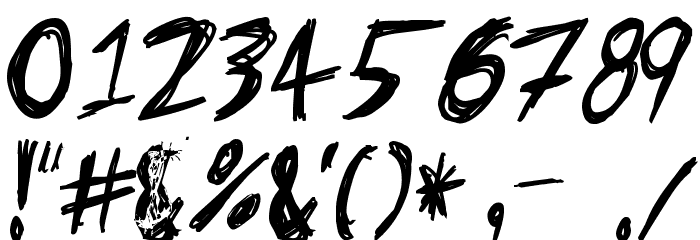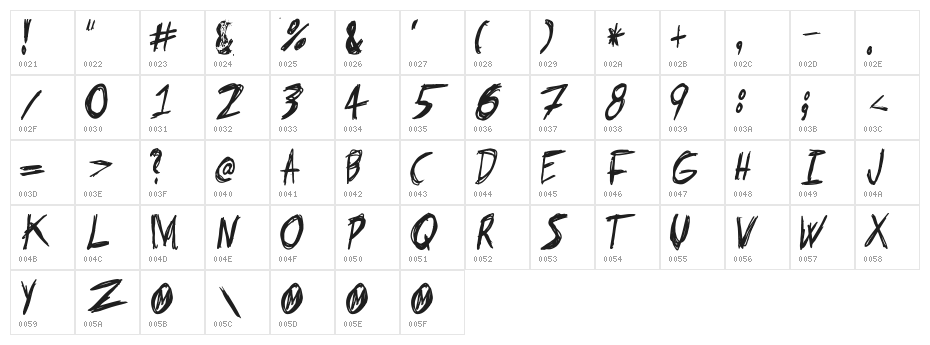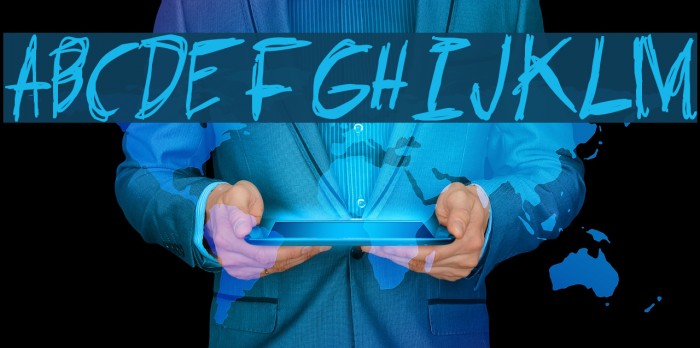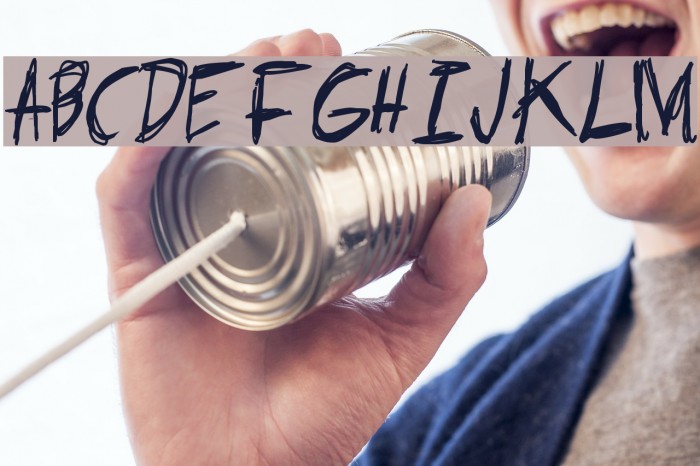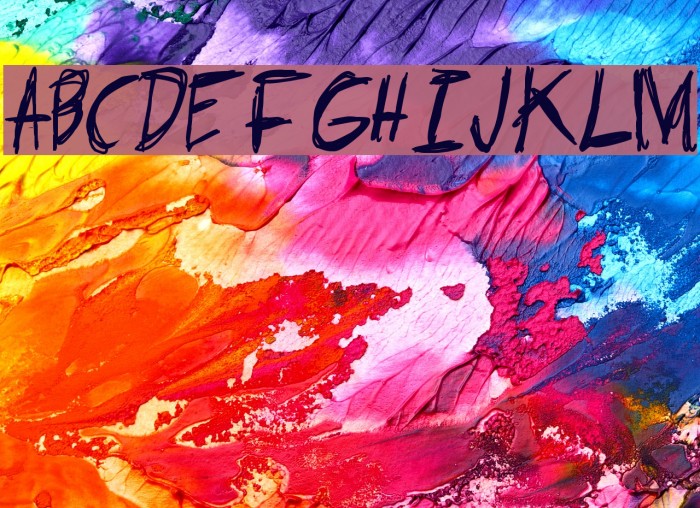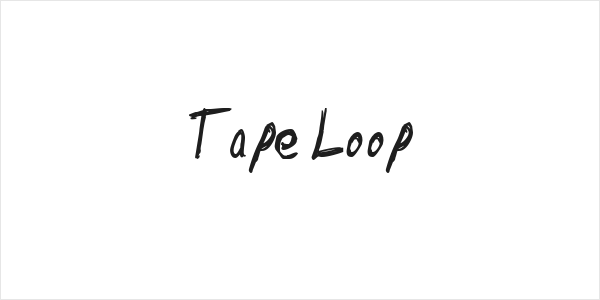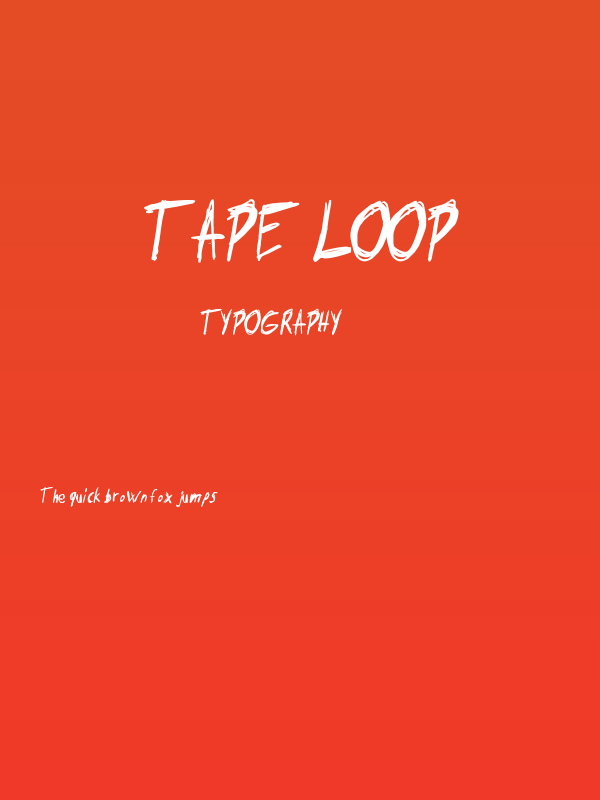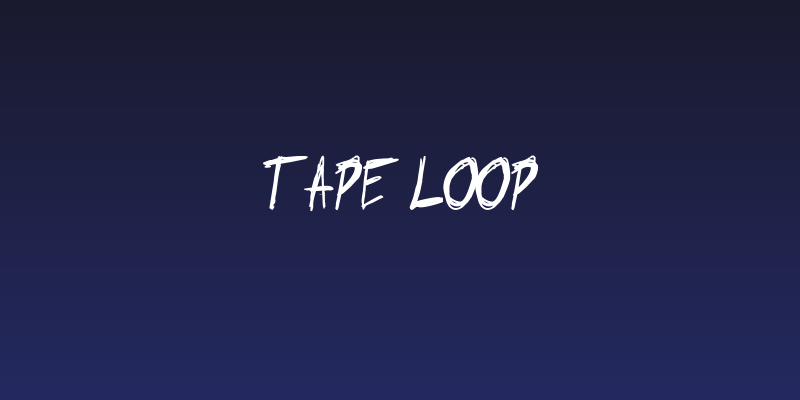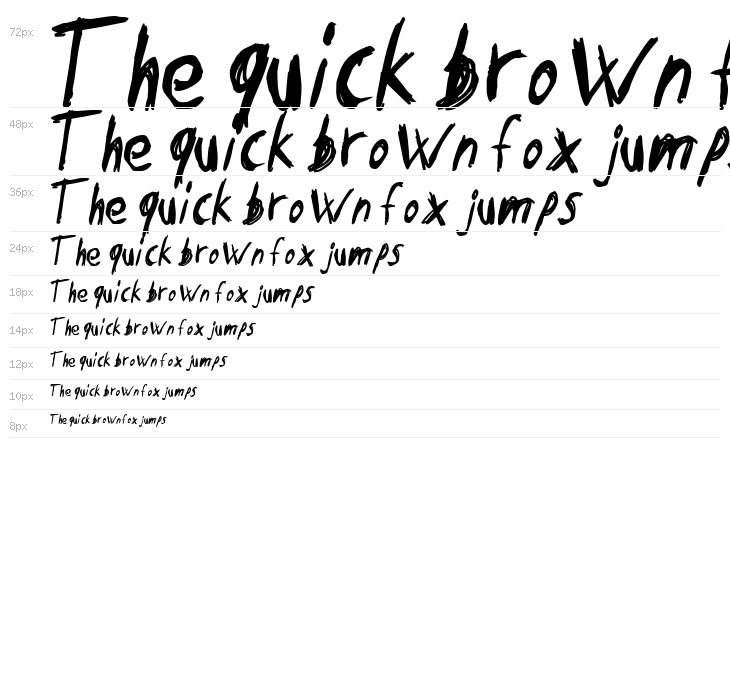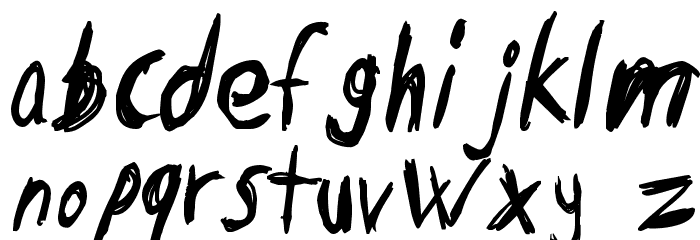
Tape Loop Font
Tape Loop Description
This font exhibits a raw, expressive style reminiscent of hand-drawn brush strokes. Each character is uniquely crafted with varying thickness, creating a dynamic and energetic appearance. The uppercase letters are bold and assertive, while the lowercase letters maintain a consistent flow, adding to the font's overall organic feel. Numbers and special characters follow the same artistic theme, ensuring a cohesive look across all elements. The irregularities in the strokes give it a spontaneous and artistic vibe, making it ideal for creative projects that require a personal touch.
Proposed ProjectsIdeal for artistic projects, album covers, posters, and branding that seeks a personal, creative touch.